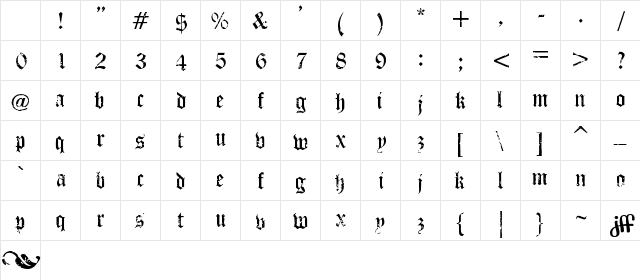
Complete Puppeteer Regular glyph index. Displaying only characters natively supported by Puppeteer Regular font.
Puppeteer is a composed and adaptable typeface that performs quietly and consistently across a wide range of design contexts.